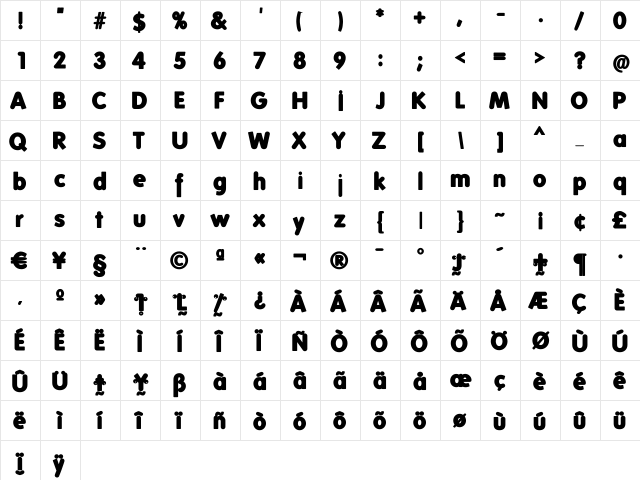
FolksBlack Regular Font Preview
FolksBlack Regular
Design Context for FolksBlack Typeface
FolksBlack takes a measured approach to typography — its balanced proportions and neutral character make it a reliable workhorse for both digital and print work.